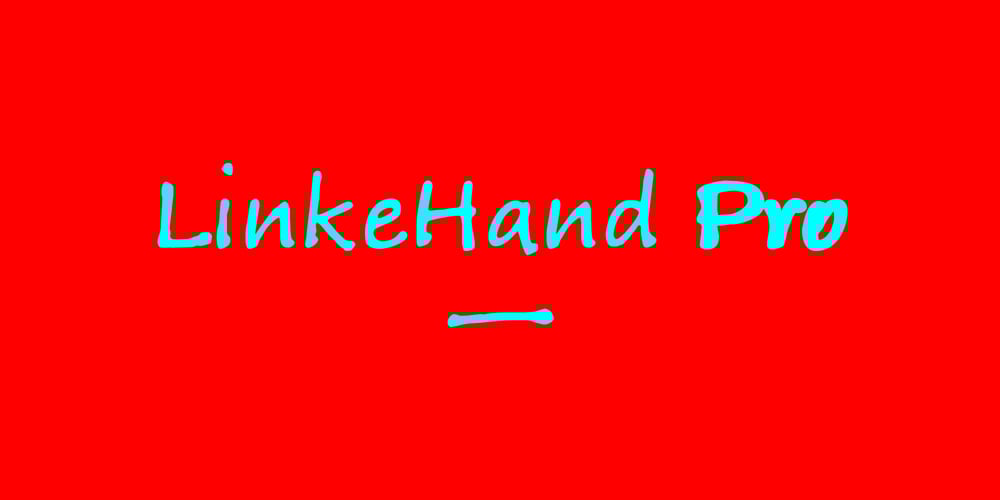
LinkeHand Pro Font Family was designed by Oliver Linke and published by Oliver Linke Type Foundry. LinkeHand Pro contains 2 styles and family package options. LinkeHand Pro was based on the handwriting of Oliver Linke. Due to its rather compact appearance with short ascenders and descenders LinkeHand can be used with rather tight line spacing. Both Regular and Bold come with Small Caps and a multitude of special ligatures to make LinkeHand look really manually written.